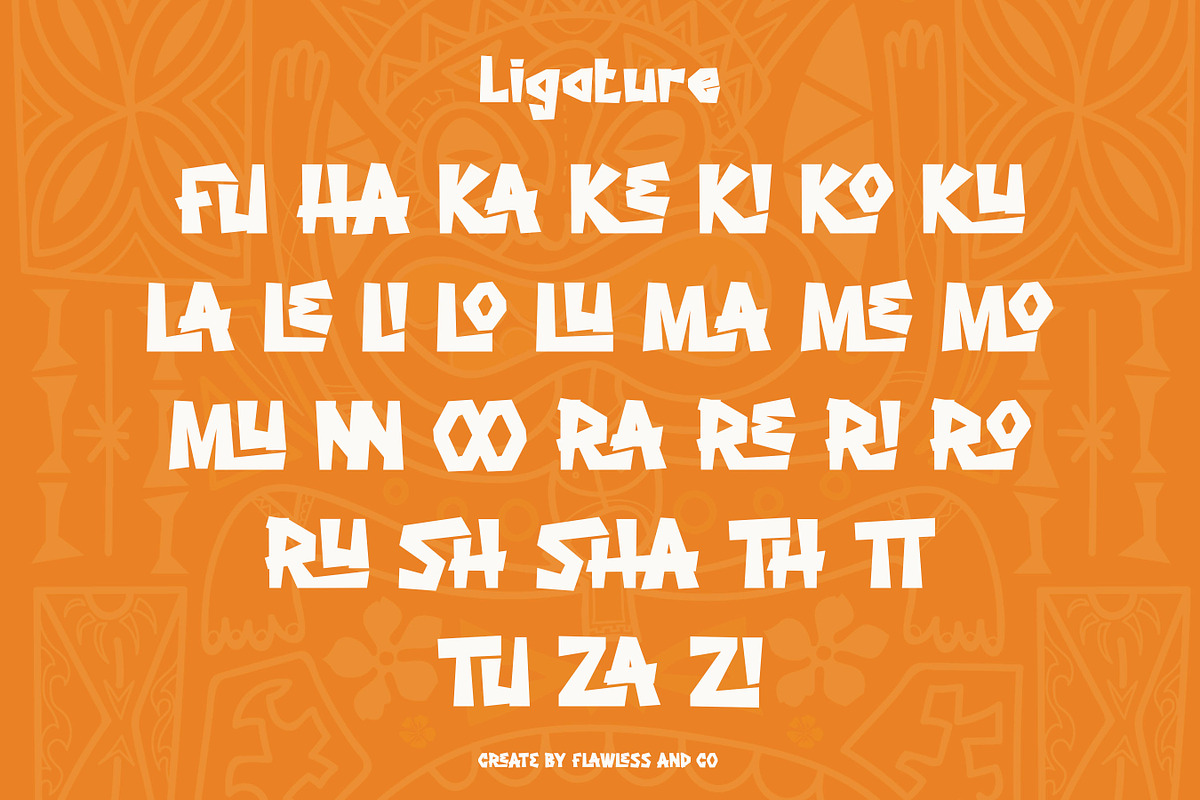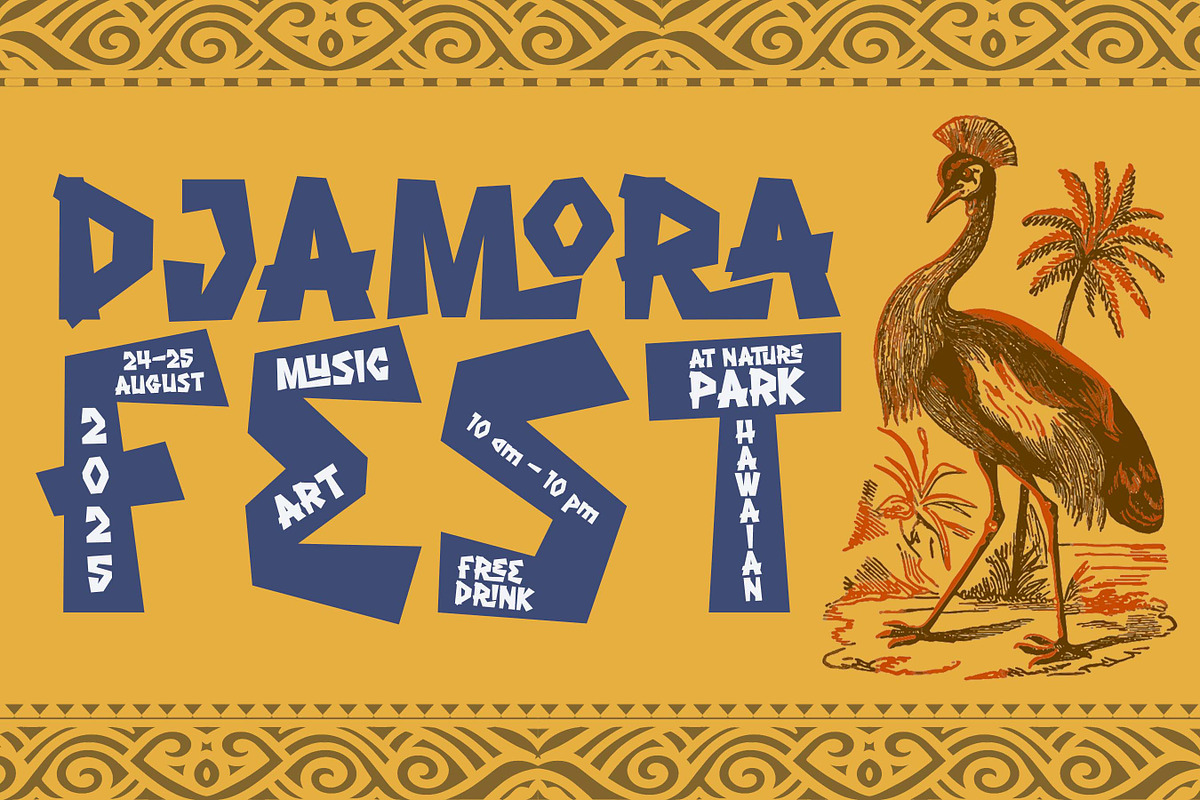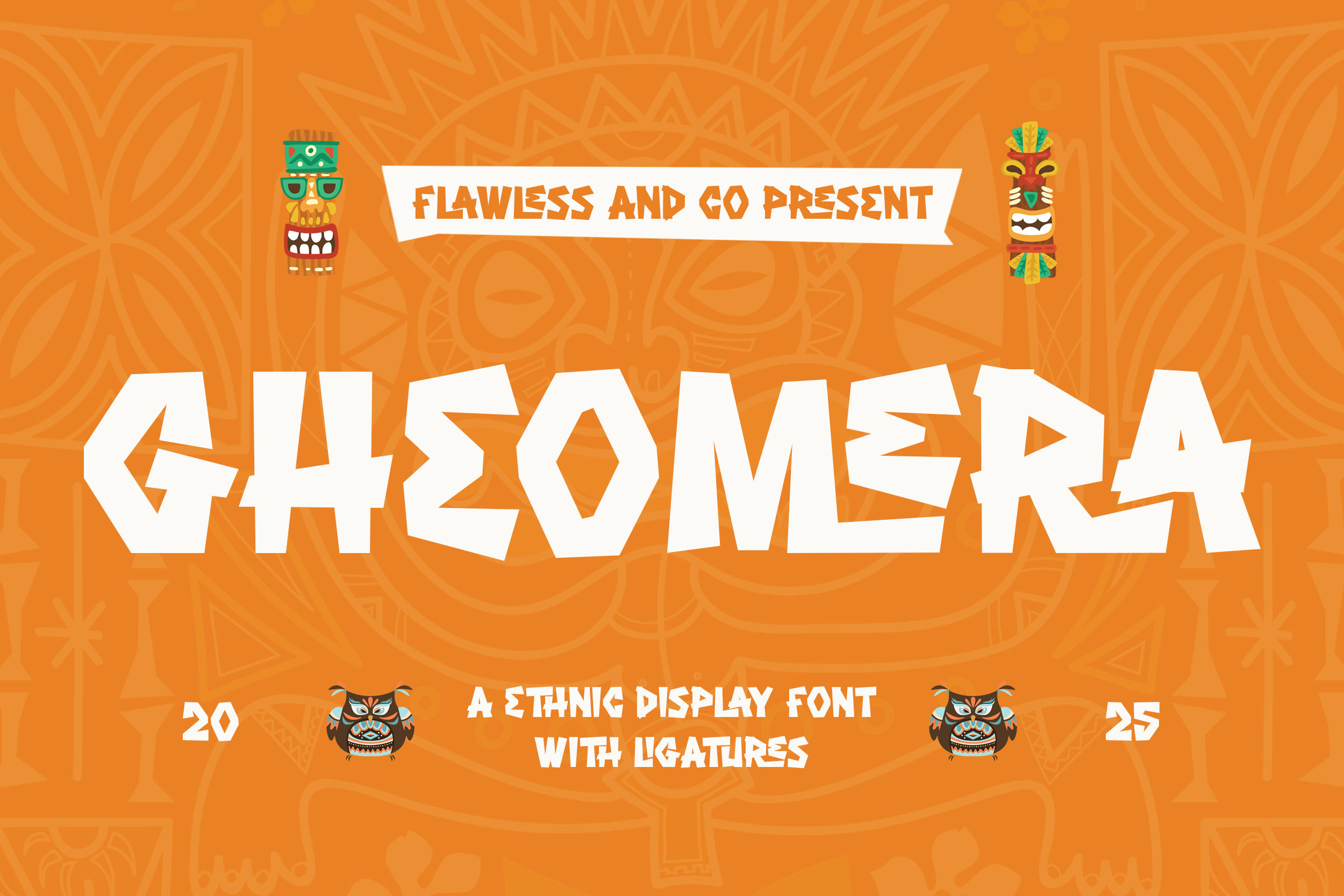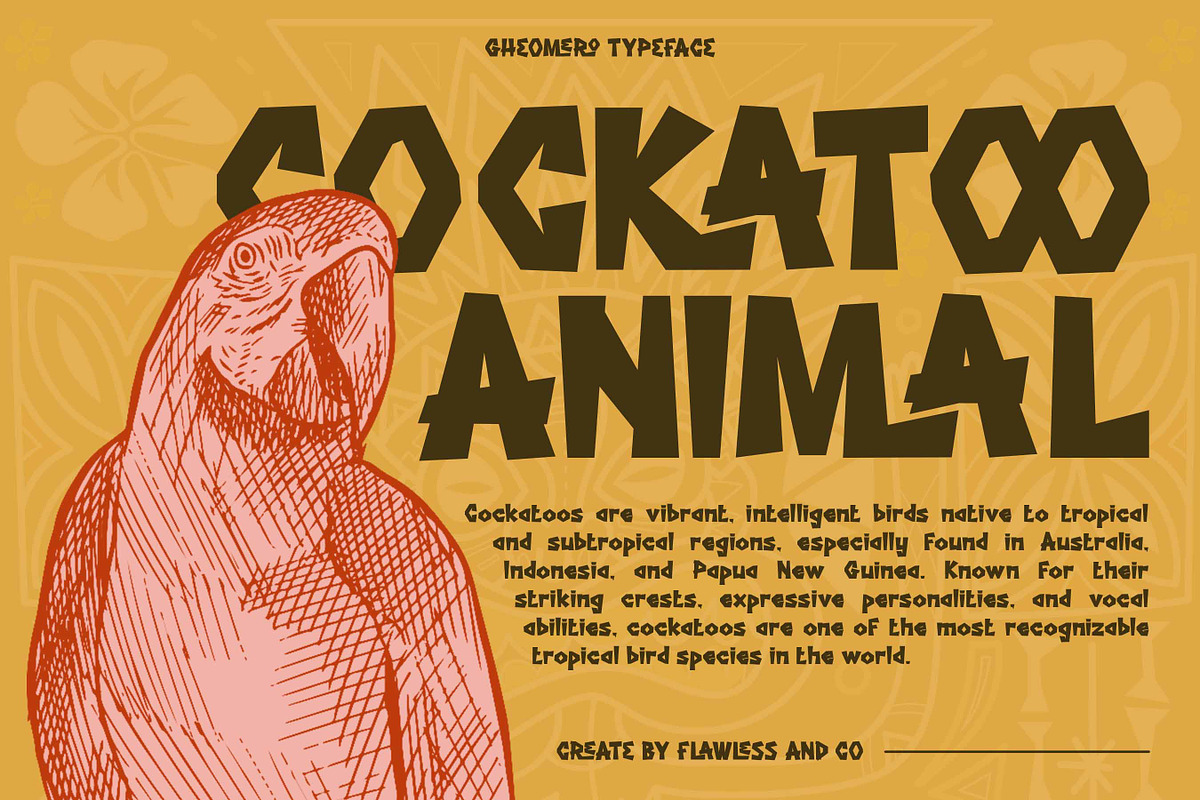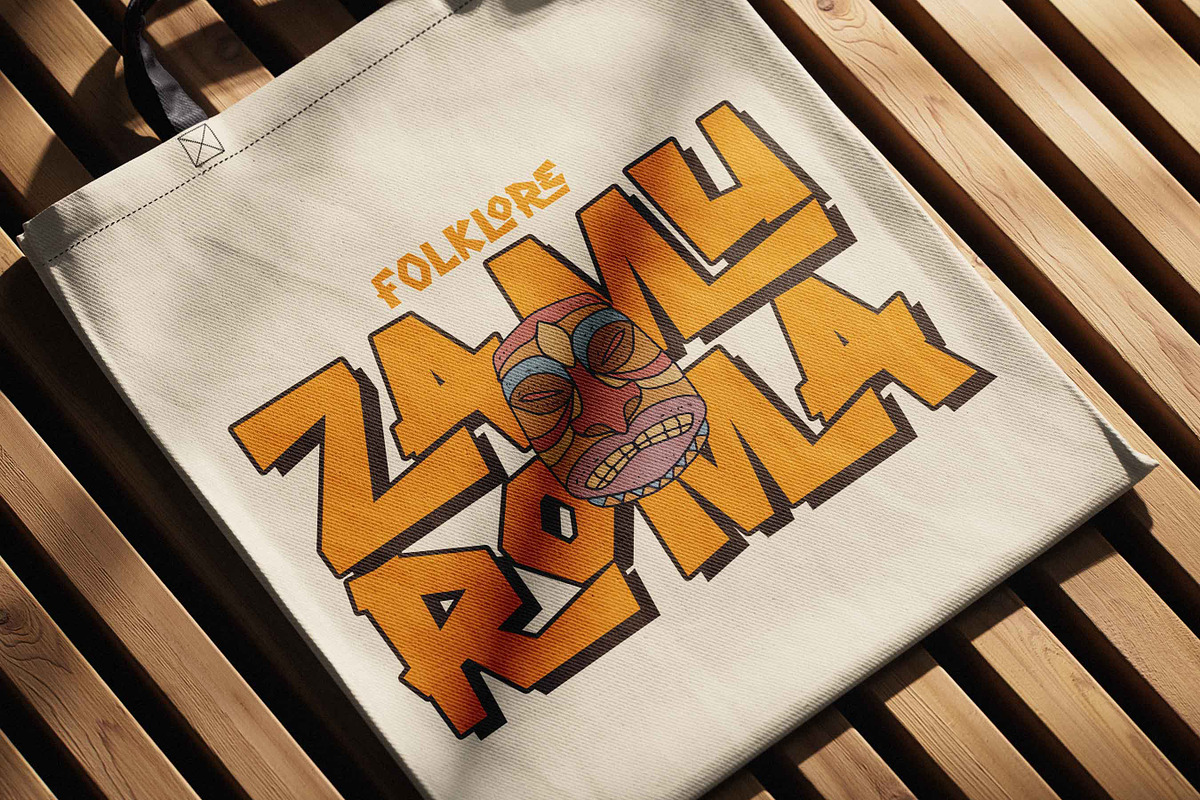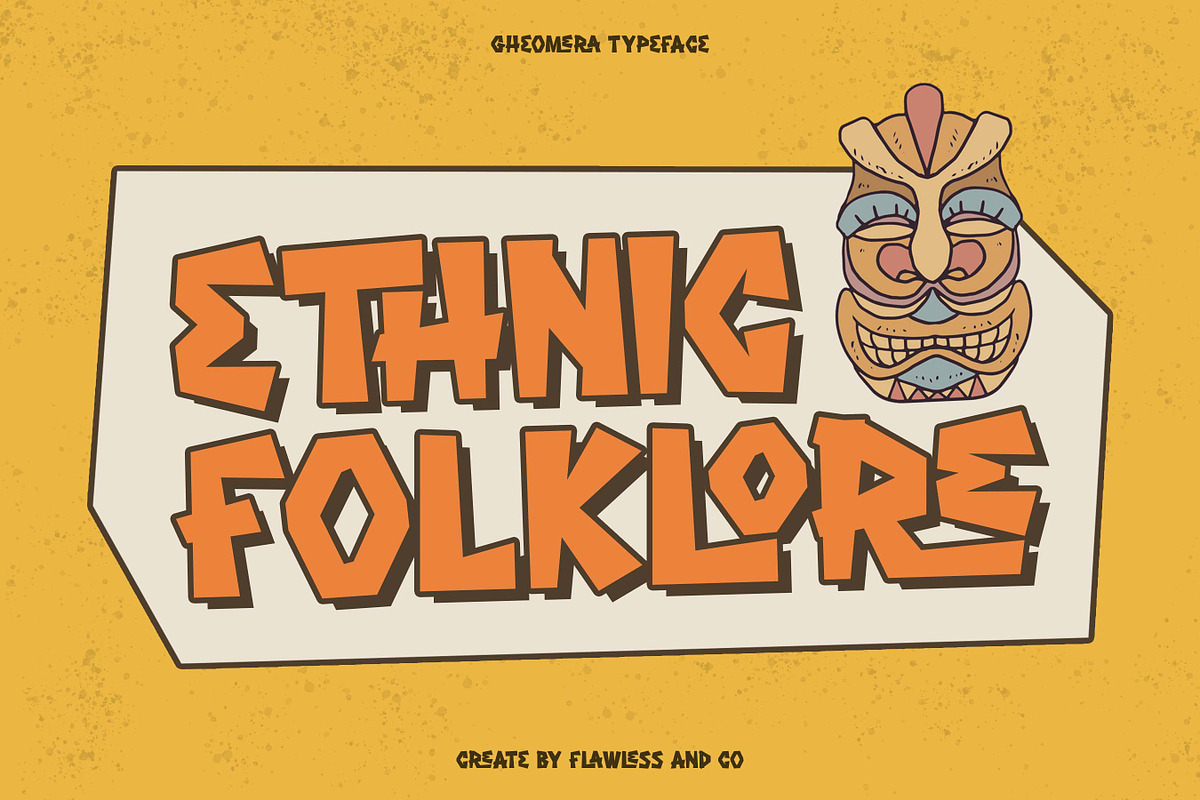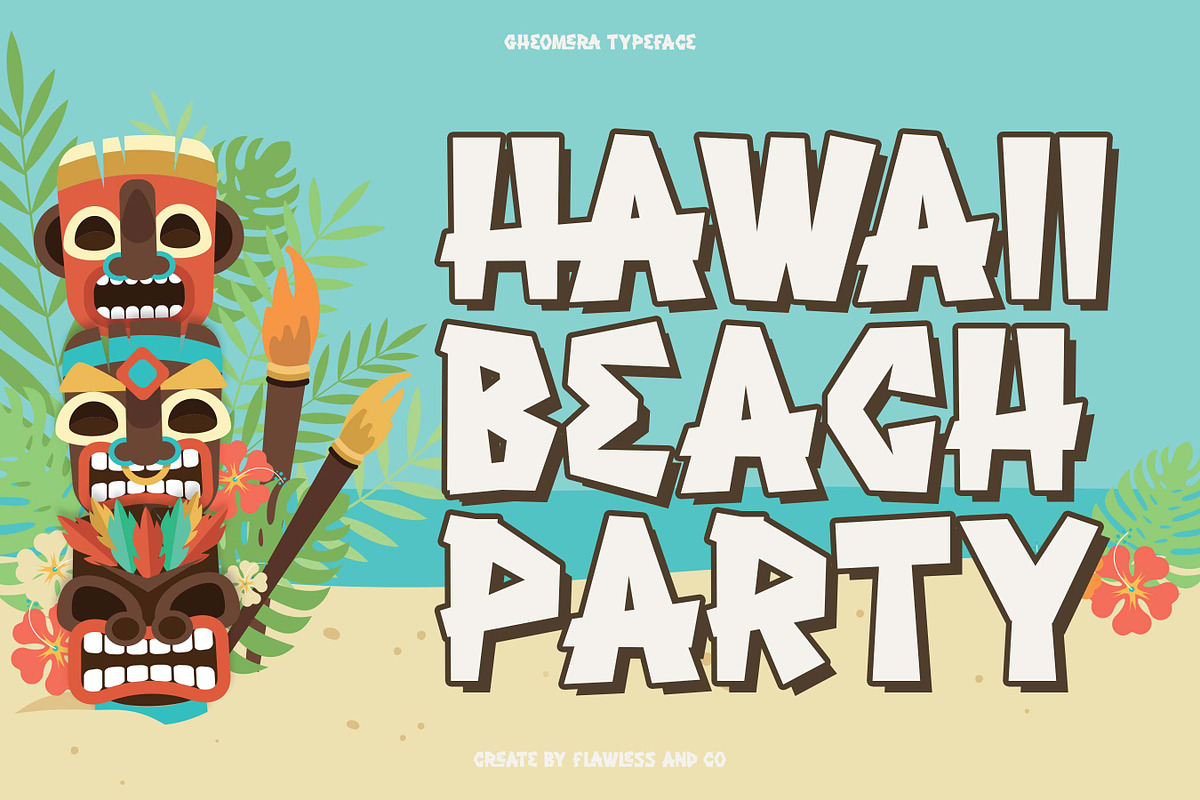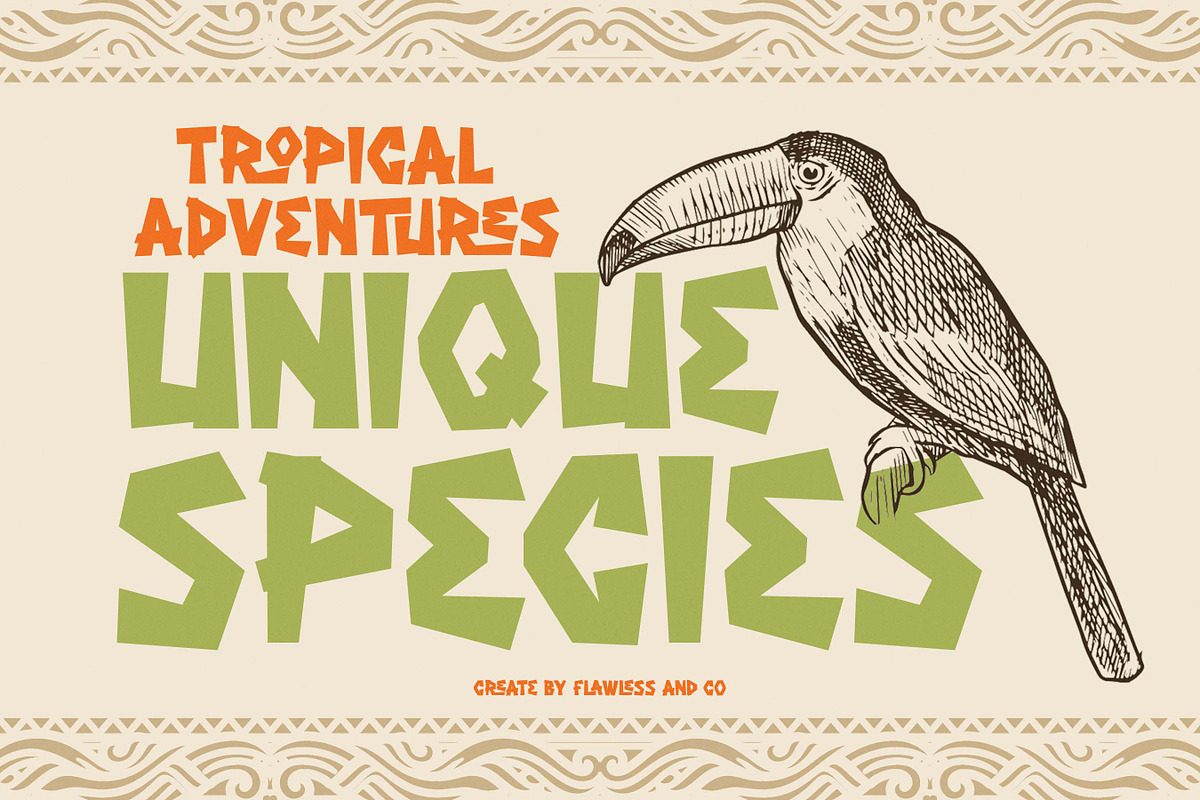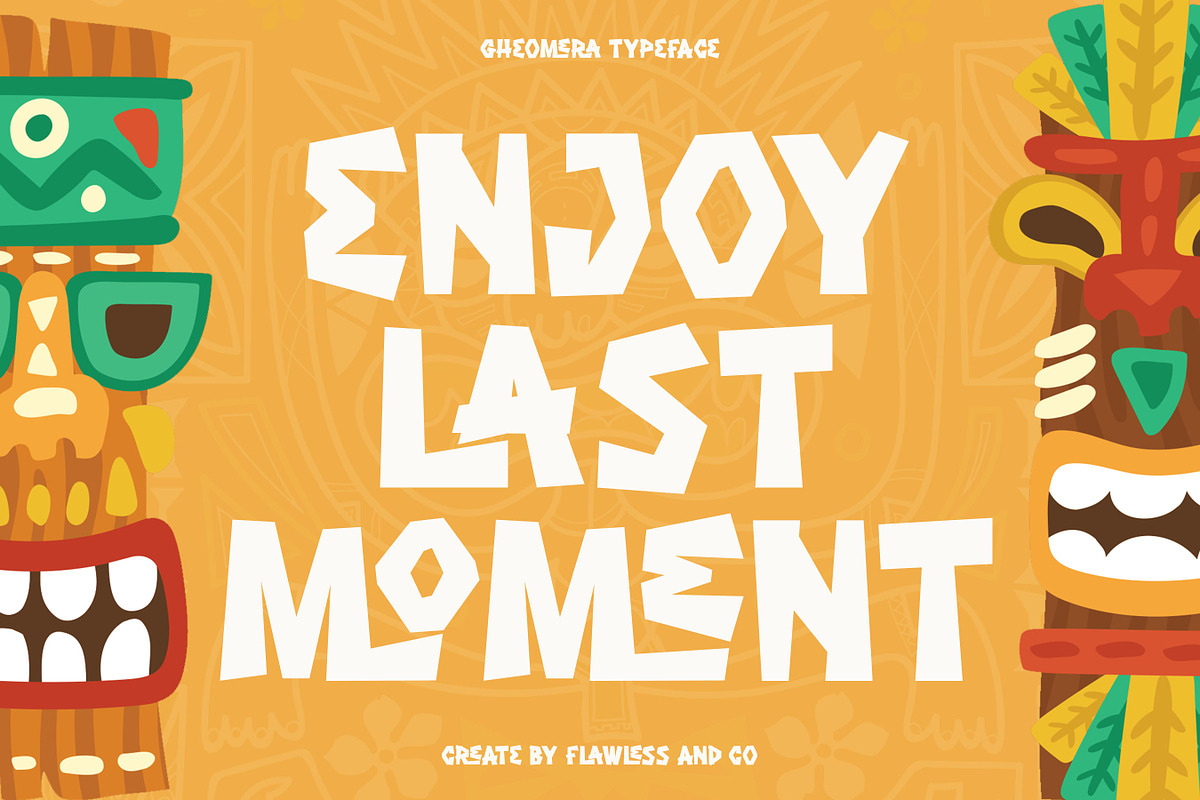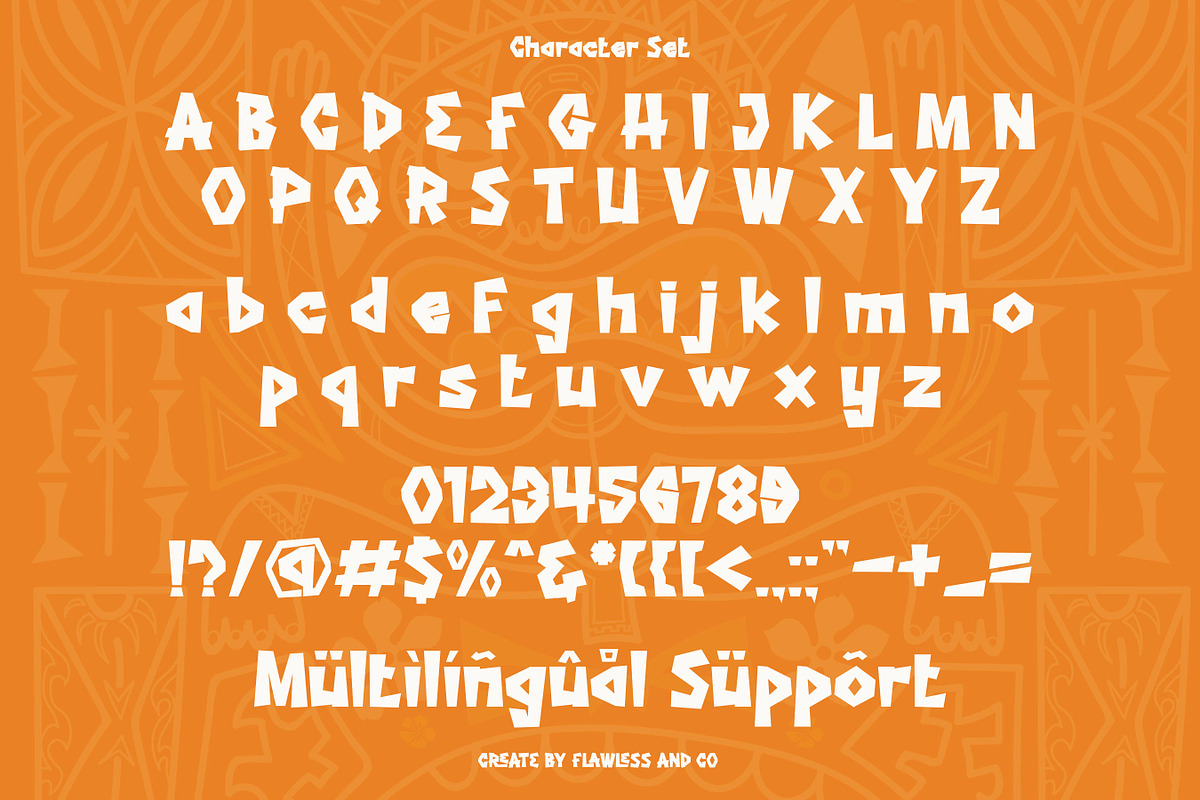
Gheomera - Display Font
GHEOMERA - Display Font
GHEOMERA is a bold ethnic display font inspired by tribal carvings, folk culture, and the spirit of ancient celebration. With its sharp angles, rhythmic letterforms, and striking ligatures, this font brings high energy and cultural flavor to any design. Perfect for posters, music festivals, island-themed branding, Tiki bar logos, apparel, packaging, and creative visuals that demand a bold, ethnic vibe—GHEOMERA turns words into rhythm and style. Make your design beat with tradition, character, and wild creative expression — only with GHEOMERA.
Who Should Use GHEOMERA?
GHEOMERA is made for bold creatives, cultural storytellers, and adventurous designers. Whether you're crafting visual identities for music festivals, designing tribal-themed merchandise, or creating eye-catching packaging, this font delivers power, uniqueness, and energy. If your project needs personality with a punch, GHEOMERA is your go-to.
A Must-Have Font for Bold Brand & Logo Creators
GHEOMERA is more than just a font — it's a cultural force. Designed for brand and logo creators who want to make a statement, this ethnic display font infuses your work with raw energy, folklore charm, and visual rhythm. Whether you're designing for music festivals, tribal-themed products, or adventurous branding, GHEOMERA delivers unforgettable impact and creative soul.
Why Choose GHEOMERA for Brand and Logo Projects?
GHEOMERA brings bold character and cultural energy to your branding. With its sharp, tribal-inspired shapes and unique ligatures, this display font is made to stand out. Perfect for brands that embrace heritage, creativity, and strength, GHEOMERA helps your logos, posters, and packaging speak loud and proud — no words needed.
Suitable For:
- Festival & event branding with a cultural or tribal theme
- Tribal and ethnic-themed branding projects
- Music posters, gig flyers, and album artwork
- Logo design for adventure, outdoor, or heritage-based brands
- Apparel and streetwear with ethnic, raw, or wild energy
- Island-inspired product packaging and beverage labels
- Creative packaging for artisanal or handcrafted products
- Book covers, editorial titles, and expressive signage
- Visual identity for tiki bars, beach cafes, or tropical restaurants
- Social media graphics with strong cultural storytelling
- Adventure or travel-themed visuals with impact